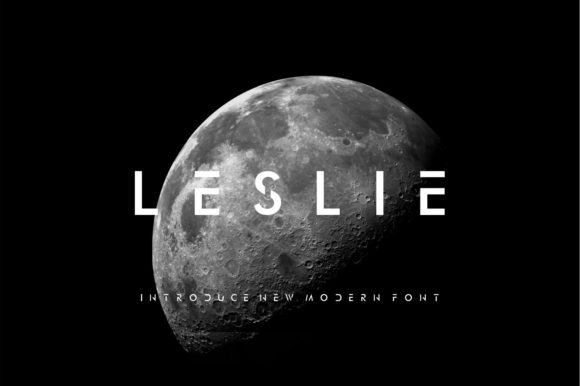
Leslie Font
Unlock your creativity and embrace the future with Leslie Font, an exceptional display font exuding modernity and intelligence, masterminded by the talented agustiananugrah08. Journey through a universe of possibilities with this typographic masterpiece, characterized by its futuristic charm. Let Leslie's unique aura ignite your imagination and propel your designs into the realm of the extraordinary.
Immerse yourself in the boundless potential of Leslie's captivating letterforms, meticulously crafted to make a lasting impact. Explore the depths of its personality, where sharp angles harmonize with fluid curves, creating a visual symphony that commands attention. Whether crafting logos, headlines, posters, or any digital canvas, Leslie's presence will elevate your designs to new heights, captivating audiences with its inherent brilliance.
Unleash your creativity and embark on a typographic odyssey. Weave your words into captivating stories, crafting designs that resonate with your audience. Let Leslie's futuristic spirit infuse your projects with a touch of sophistication, leaving an indelible mark on the minds of your beholders. Don't settle for ordinary; embrace the extraordinary with Leslie Font today!
- Modern and Smart Display Font: Elevate your designs with Leslie's distinctive style, seamlessly blending modernity and intelligence.
- Futuristic Charm: Embark on a journey into the future with Leslie's captivating letterforms, evoking a sense of innovation and progress.
- Perfect for Logos, Headlines, and Posters: Make a statement with Leslie's bold presence, ideal for creating impactful logos, captivating headlines, and eye-catching posters that demand attention.
- Extensive Language Support: Communicate with the world using Leslie's comprehensive language support, ensuring seamless integration with diverse audiences.